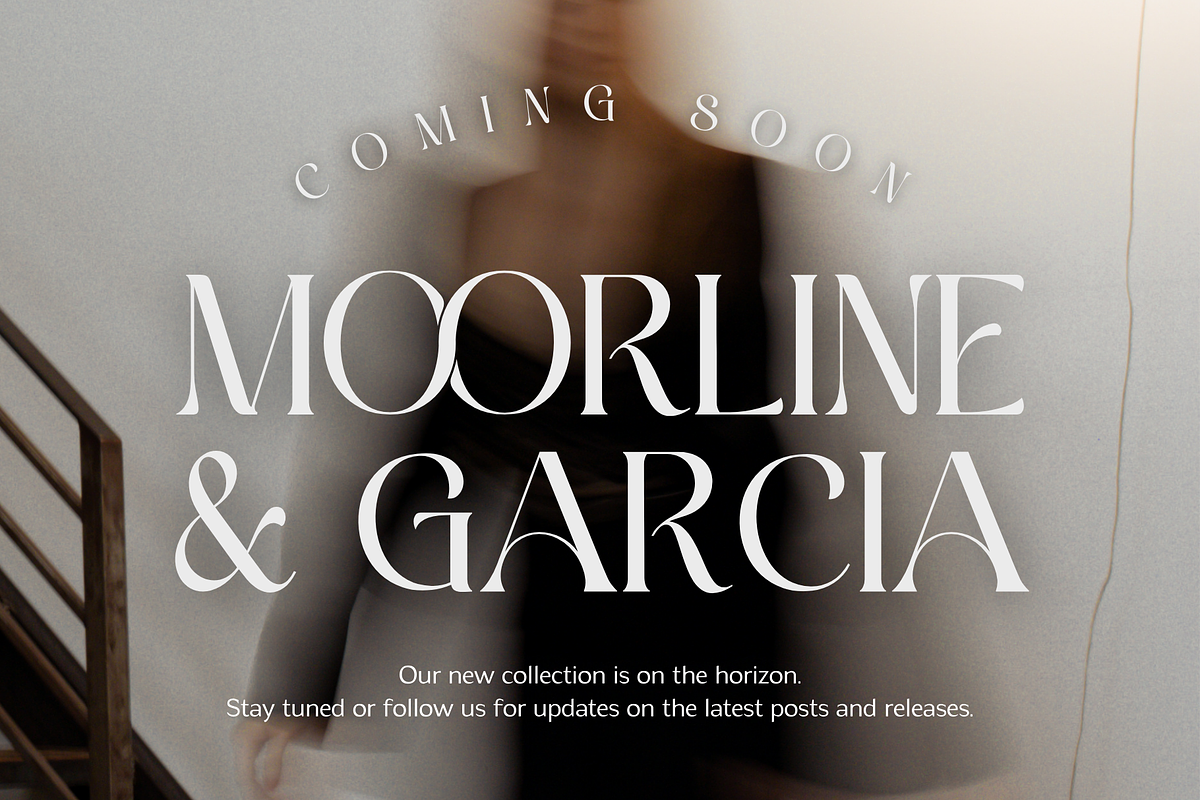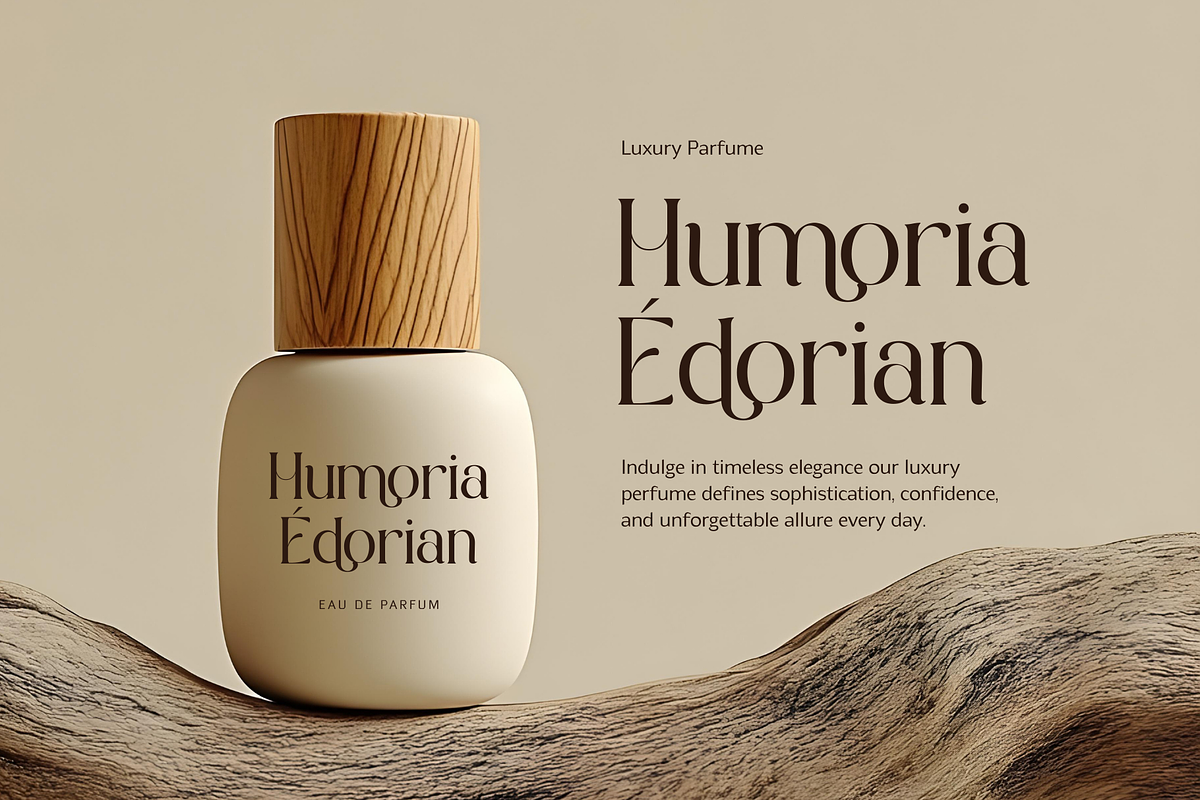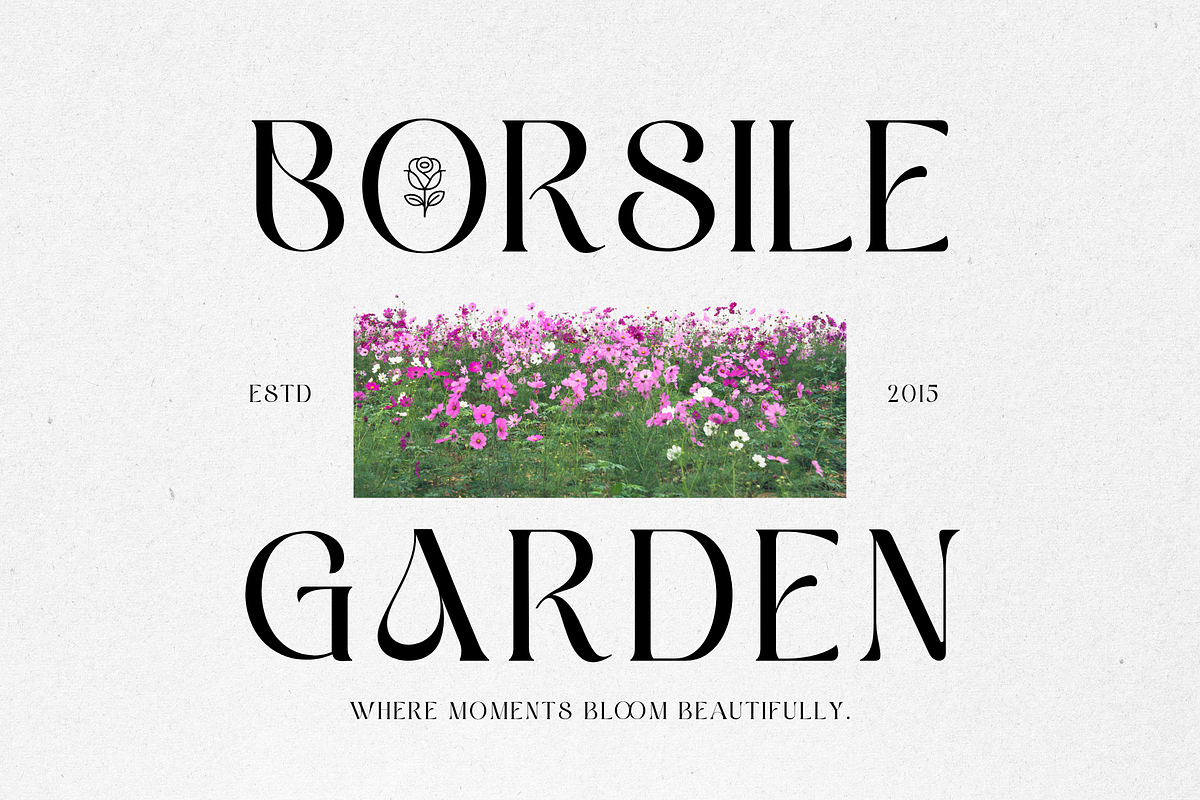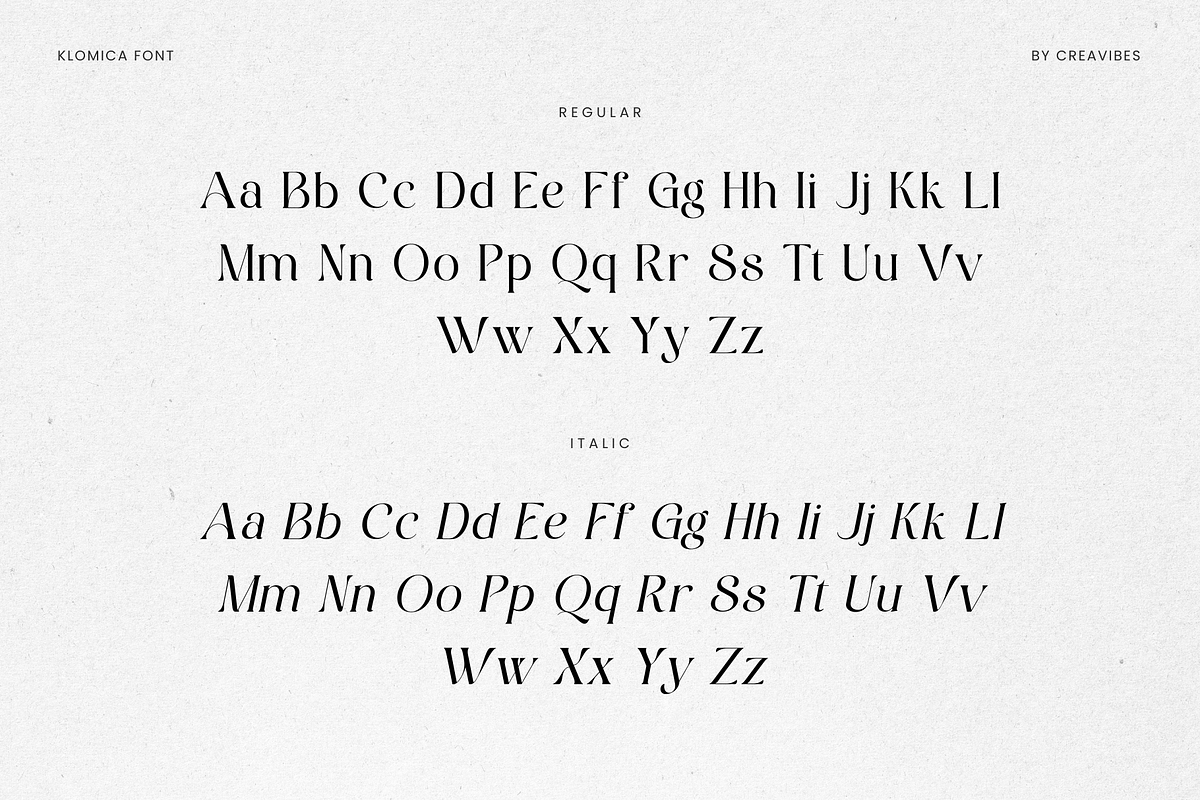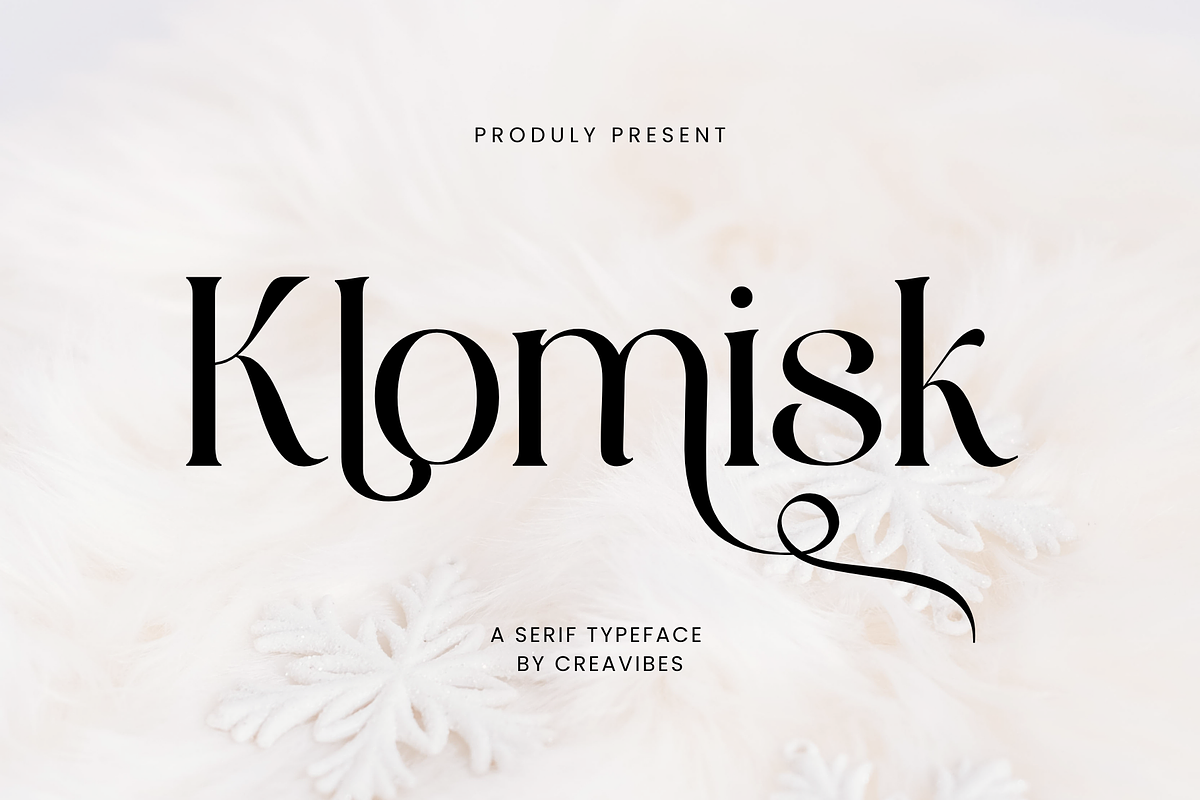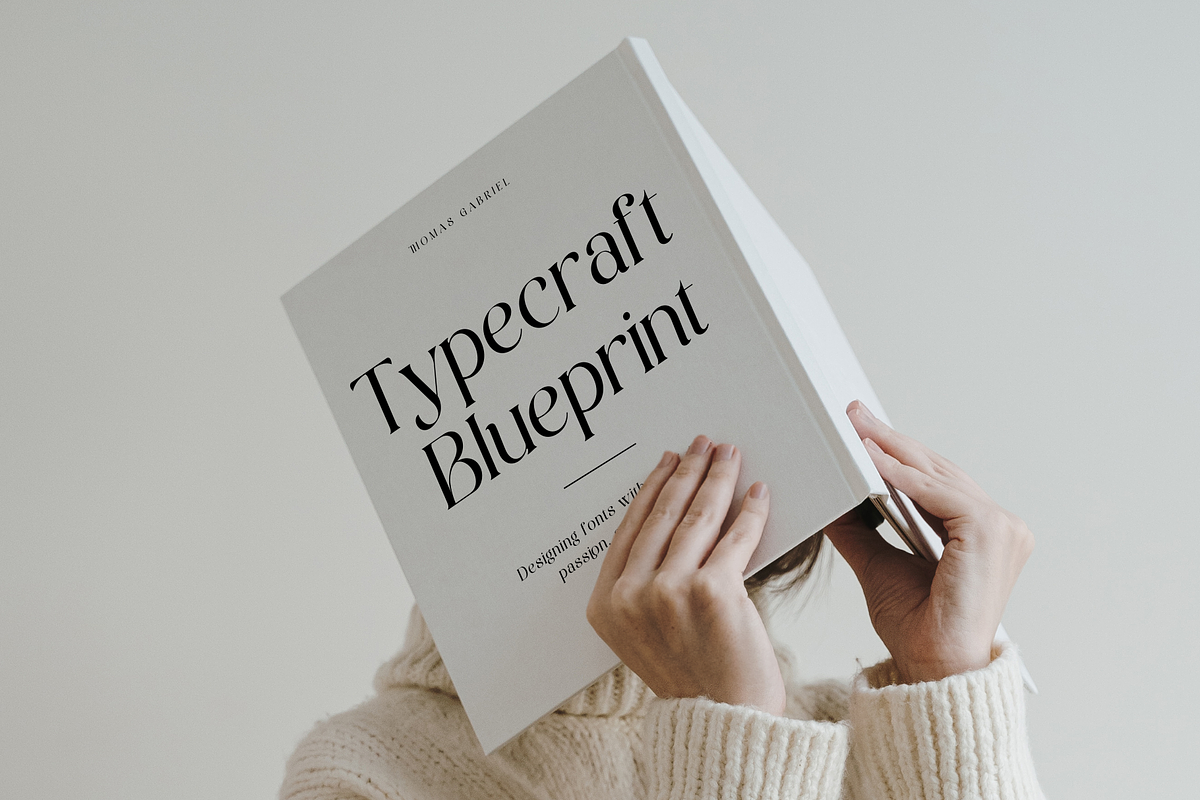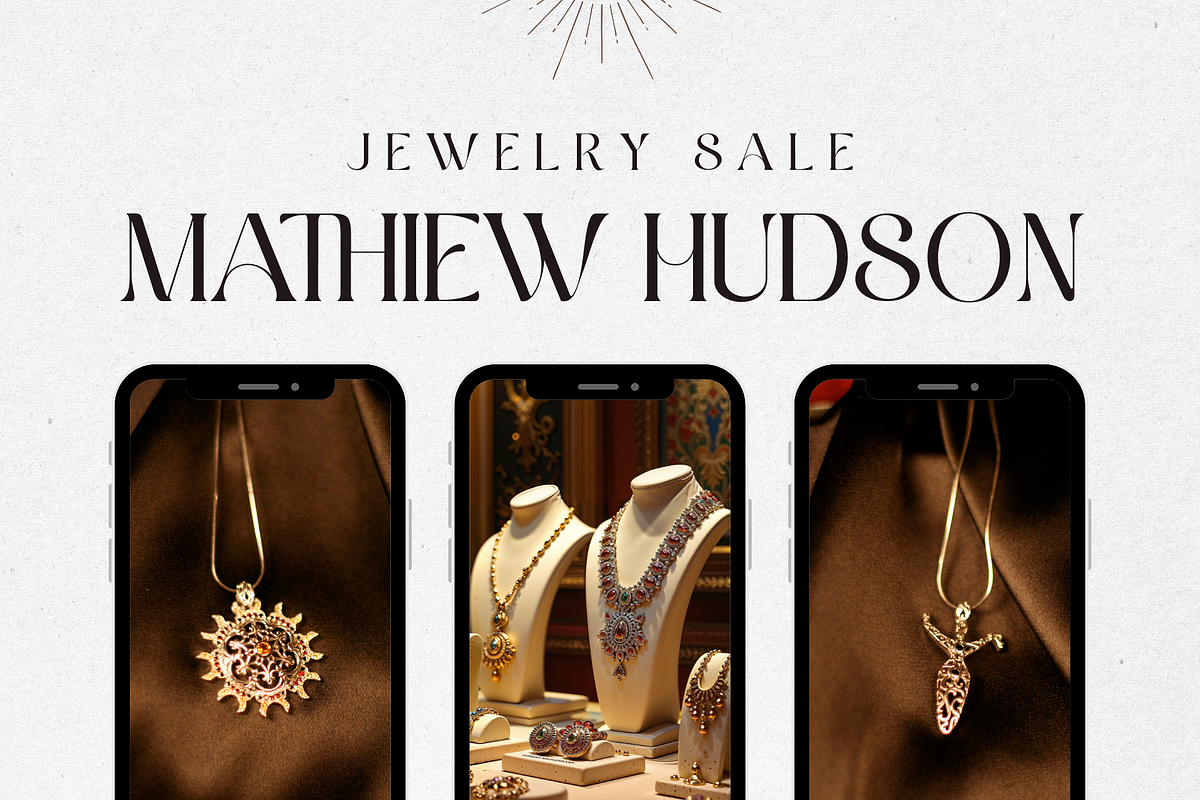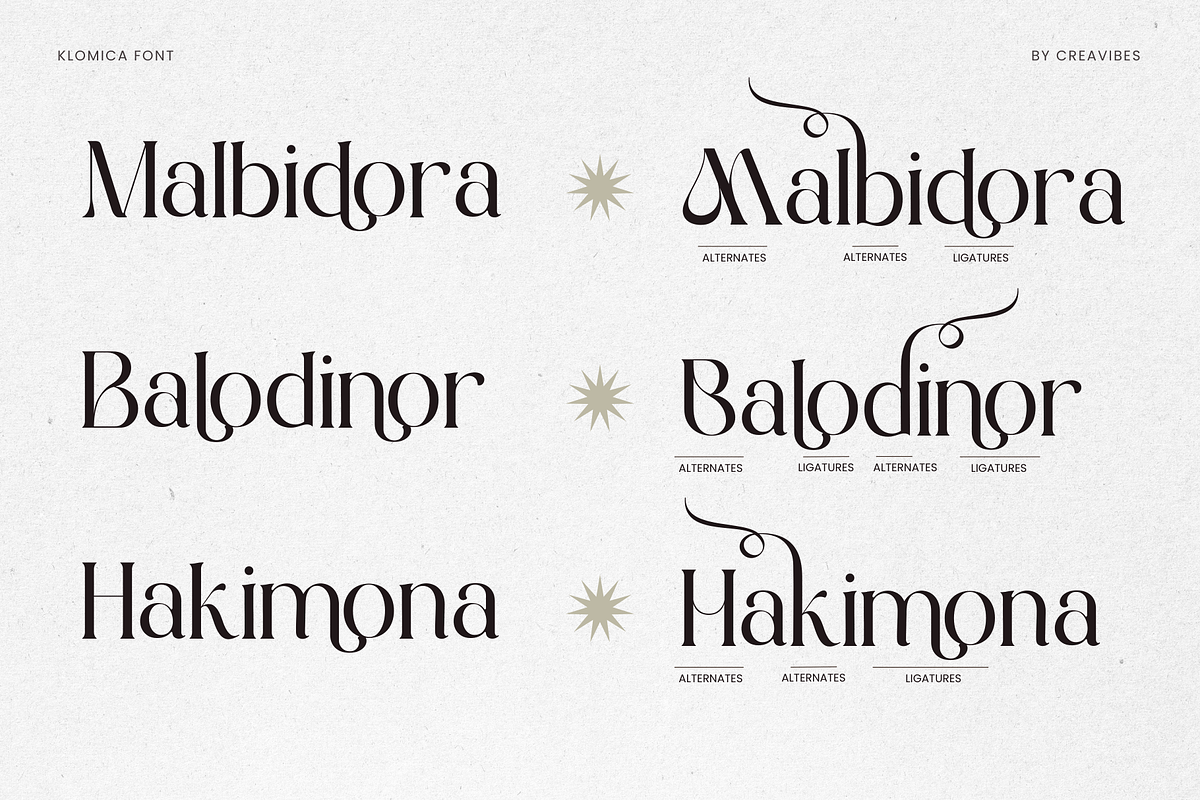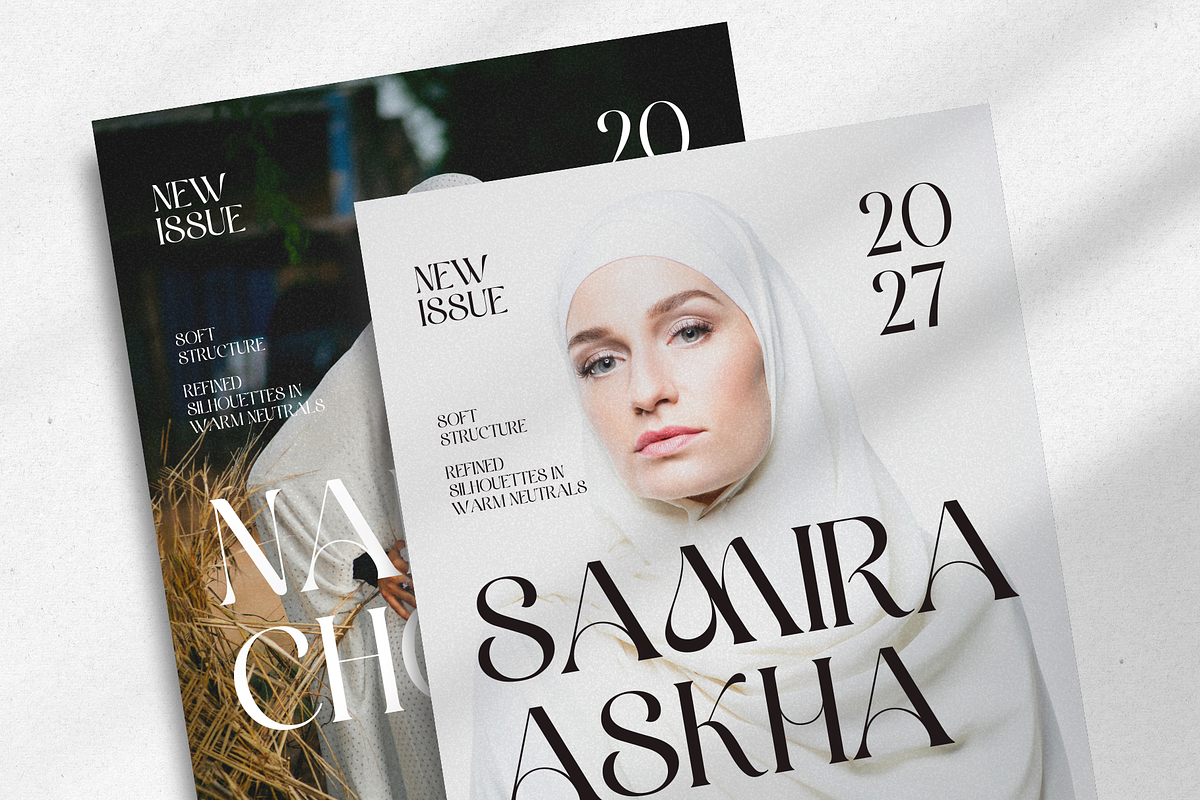
Klomisk - Serif Font
Klomisk is a versatile serif font that combines classic structure with a modern, refined touch. Featuring clean serifs, balanced proportions, and clear readability, this font is ideal for editorial layouts, branding, books, logos, and professional designs. Klomisk delivers a timeless and elegant appearance while remaining flexible for both traditional and contemporary projects.
- Alternates & ligatures